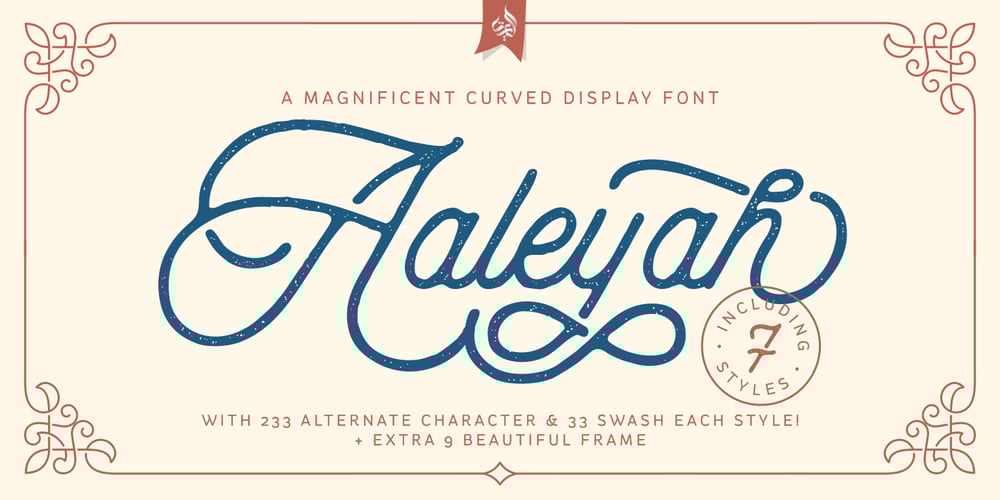
Aaleyah Font Family was designed by Linggar Sundoro and published by Aluyeah Studio. Aaleyah contains 7 styles and family package options. Aaleyah is a magnificent curved display font family. Use it to add vintage and mystique flavor to any design! It fits perfectly for your logo designs, headlines, music projects, social media posts, event posters, brand imagery, product packaging, quotes, merchandise, and more.Aaleyah has OpenType support, Multi-lingual support (15 languages) and is PUA Encoded.You can easily call alternates character using special combination like A.2 B.2 a.2 v.2 so you don’t need special software.I really hope you enjoy using it! If you have any questions I’d be more than happy to answer them, just send me a message.